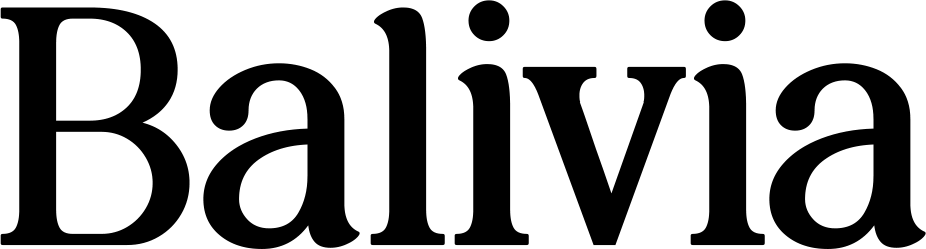
Balivia Font
Balivia is a serif font. This font is really majestic and conveys a sense of credibility, respect, and formality to the audience. Balivia can be used to design the logos of high-class companies and reputable brands. You can use Balivia to dramatically increase the quality of your content and impress people.